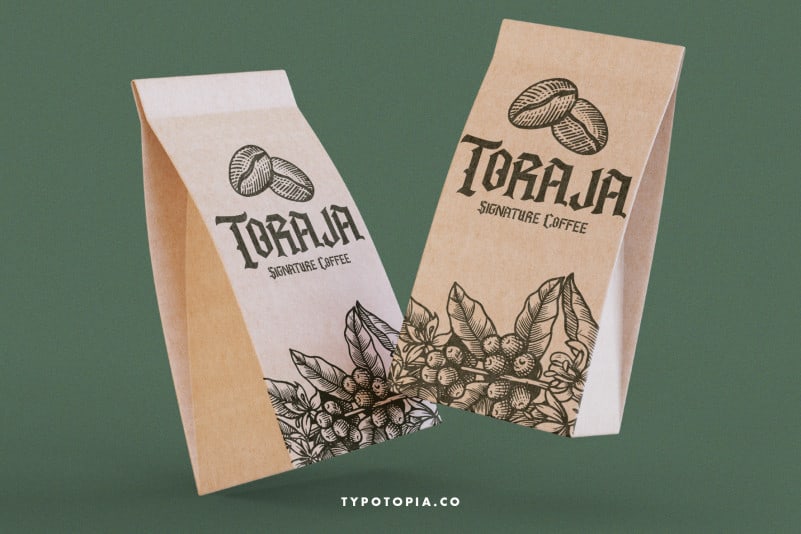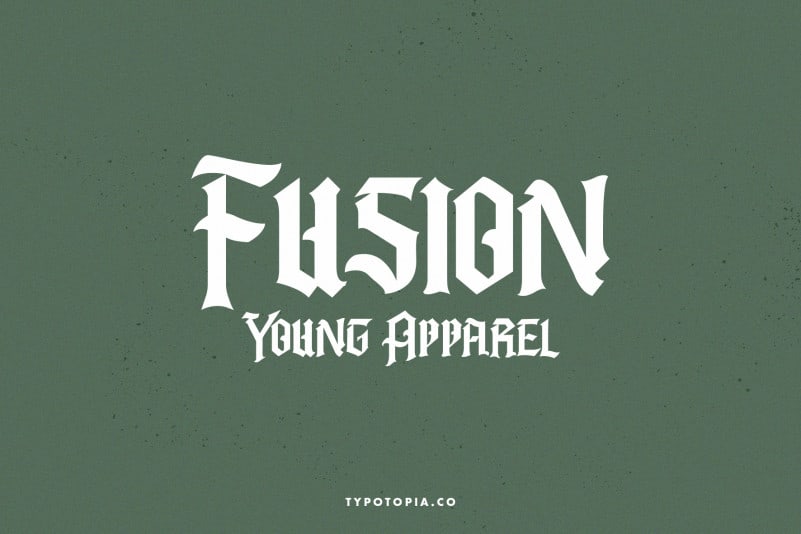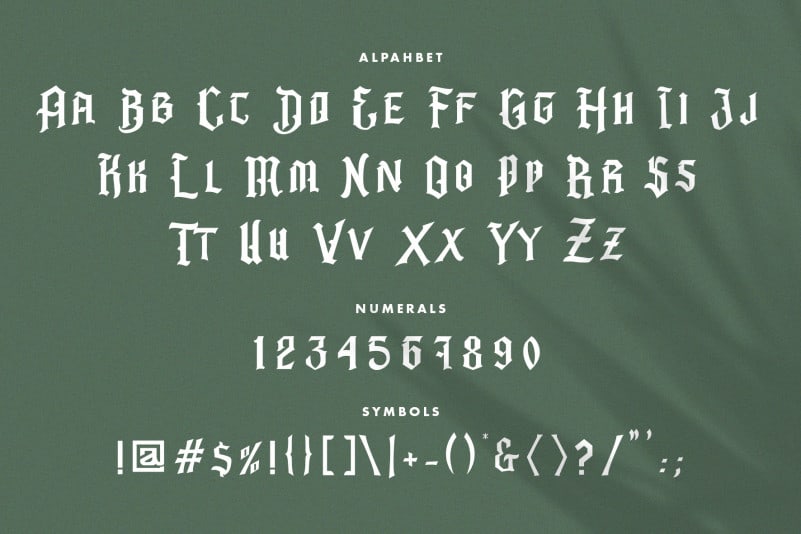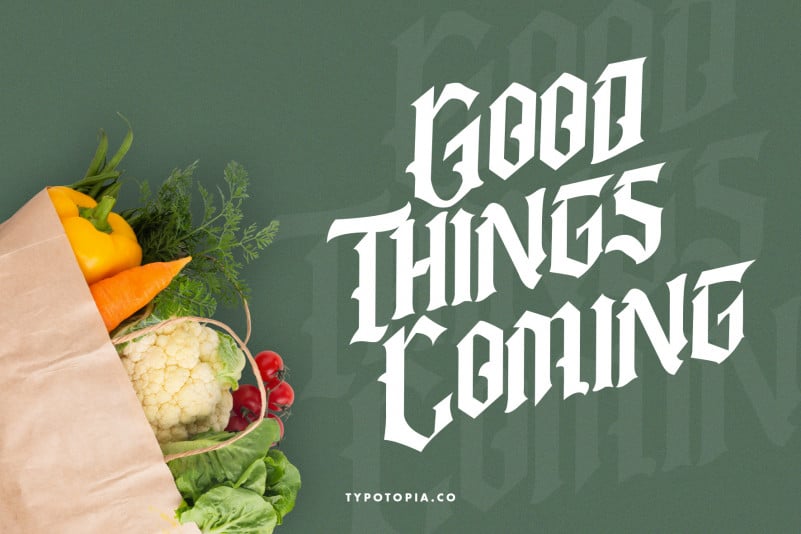
Barbatos Modern Blackletter Font
Introducing, Barbatos Modern Blackletter Font a unique Blackletter Font for your Design!!
Barbatos Modern Blackletter Font is a unique Blackletter Font for your Design that is absolutely great for your next creative project such as logos, printed quotes, invitations, cards, product packaging, headers, Logotype, Letterhead, Poster, Apparel Design, Label, and etc.
This Versatile Font includes also support a Multilingual Characters. Making this Font a Swiss Army knife in your Font Library. It’s extremely fun to use as each word can be transformed to your liking.